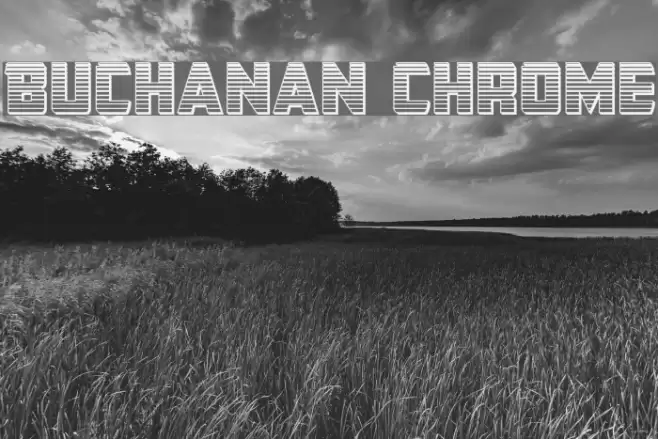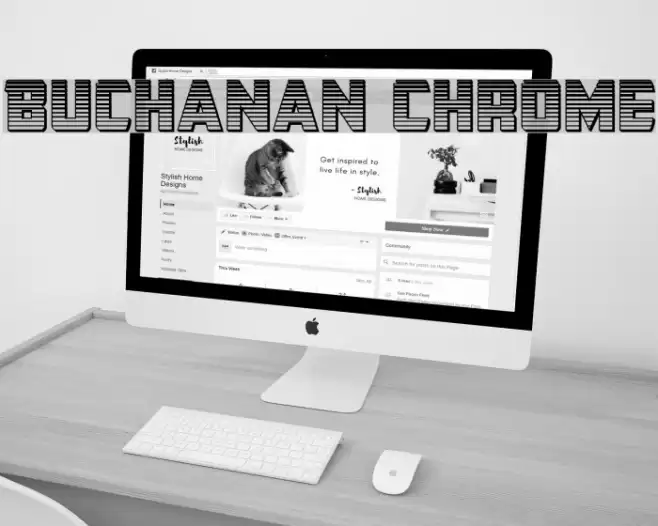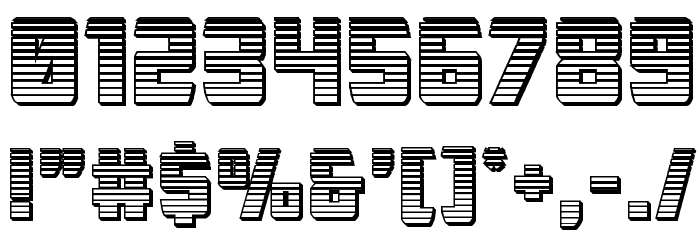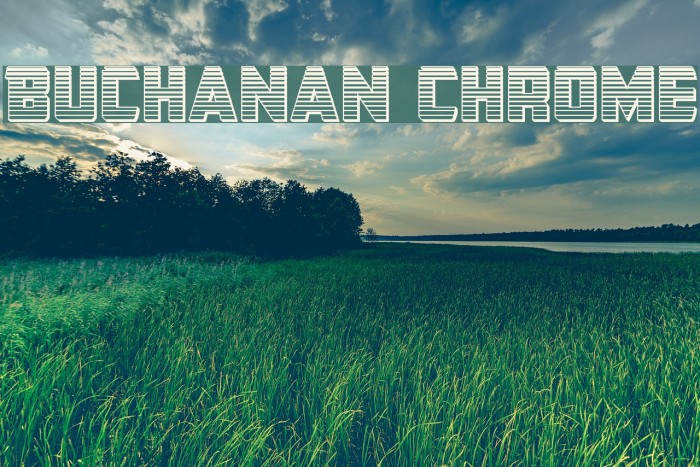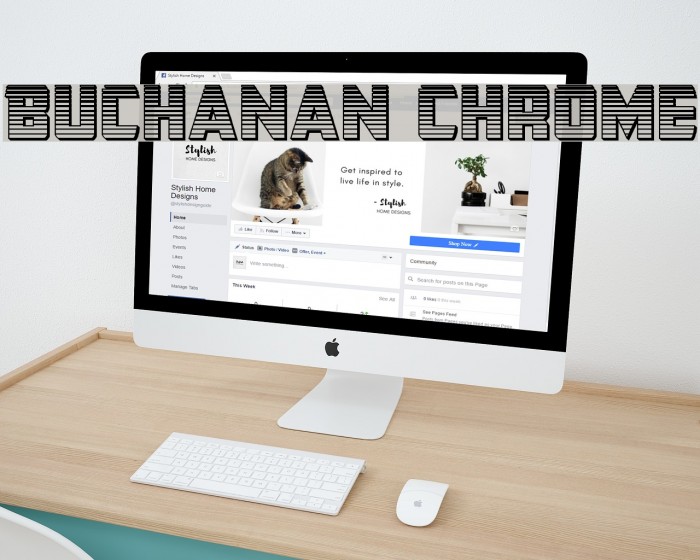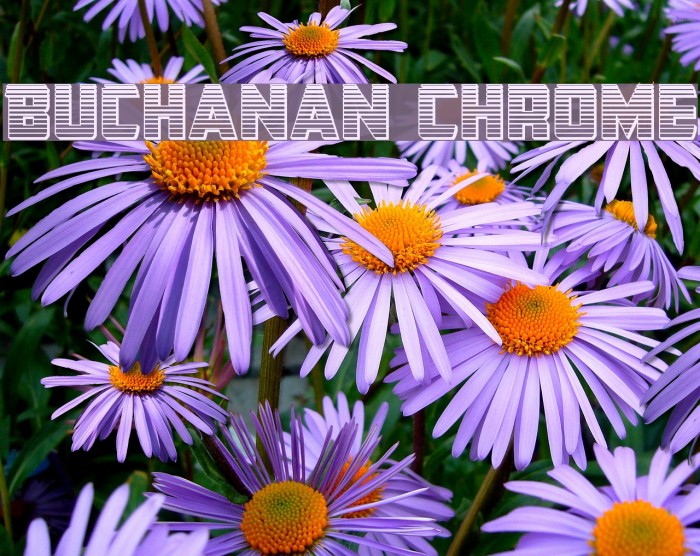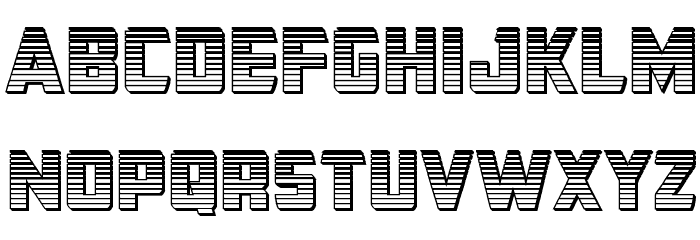
Buchanan Chrome Font
Buchanan Chrome Description
This font features a bold, geometric design with a distinct three-dimensional effect created by horizontal lines running through each character. The uppercase letters are uniform in height and width, giving a strong, structured appearance. The numerals and special characters follow the same design principles, ensuring consistency across all glyphs. The style is reminiscent of retro-futuristic aesthetics, making it ideal for projects that require a bold, eye-catching typeface.
A bold, geometric font with a retro-futuristic, three-dimensional effect from Uncategorized fonts.
- Proposed Projects: Ideal for poster designs, branding, logos, and any project that requires a striking, retro-futuristic aesthetic.
- Overall Style: Retro-Futuristic